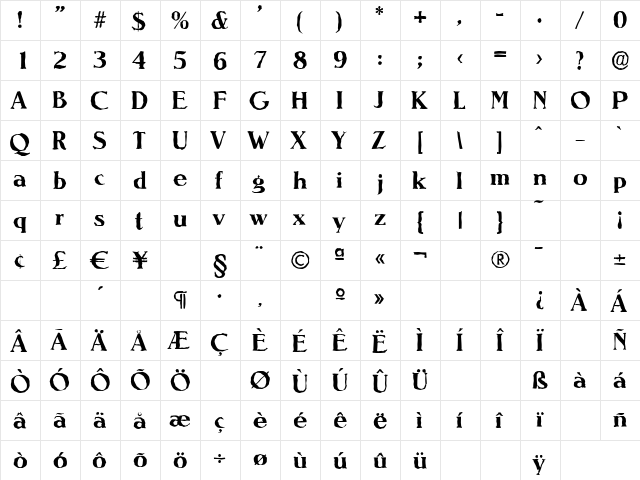
NevadaAntique Bold
Foundry SoftMaker Software GmbH
DesignerSoftMaker Software GmbH
Design Context for NevadaAntique Typeface
NevadaAntique has the warm character of retro typography — evoking diners, record sleeves, and the golden age of print advertising. The heavy weight commands attention and anchors typographic hierarchies.
Font Pairing: Combine NevadaAntique with a simple slab or neutral sans — period-accurate companions reinforce the vintage feel without competing for attention.
Pro Tip: Use NevadaAntique for headlines and pull quotes rather than body copy — its personality is best appreciated in short, focused bursts.